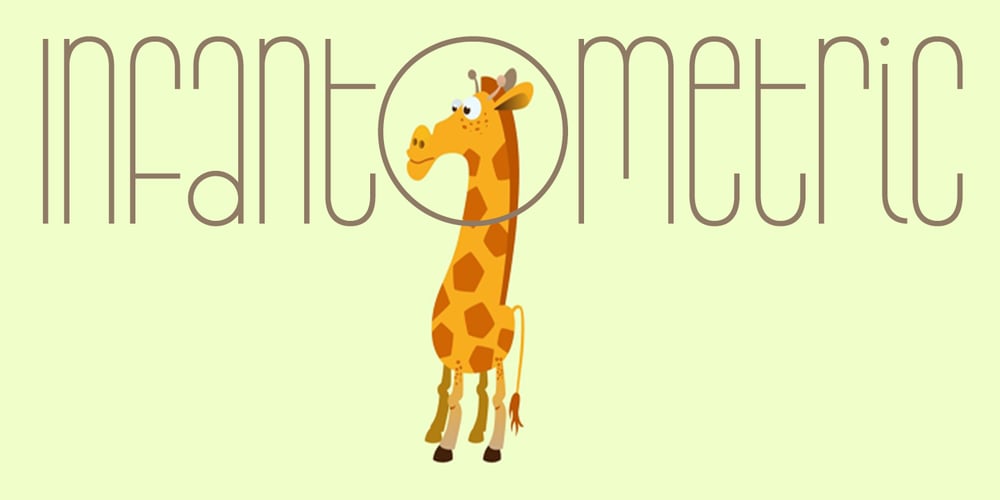
Infantometric Pro Font Family was designed by Roger S. Nelsson and published by CheapProFonts. Infantometric Pro contains 3 styles and family package options. The unicase height, condensed forms and playful mix of geometric construction and childish letterforms gives these fonts a naïve and charming expression. Part infantile, part geometric – it’s Infantometric! ALL fonts from CheapProFonts have very extensive language support: They contain some unusual diacritic letters (some of which are contained in the Latin Extended-B Unicode block) supporting: Cornish, Filipino (Tagalog), Guarani, Luxembourgian, Malagasy, Romanian, Ulithian and Welsh. They also contain all glyphs in the Latin Extended-A Unicode block (which among others cover the Central European and Baltic areas) supporting: Afrikaans, Belarusian (Lacinka), Bosnian, Catalan, Chichewa, Croatian, Czech, Dutch, Esperanto, Greenlandic, Hungarian, Kashubian, Kurdish (Kurmanji), Latvian, Lithuanian, Maltese, Maori, Polish, Saami (Inari), Saami (North), Serbian (latin), Slovak(ian), Slovene, Sorbian (Lower), Sorbian (Upper), Turkish and Turkmen. And they of course contain all the usual “western” glyphs supporting: Albanian, Basque, Breton, Chamorro, Danish, Estonian, Faroese, Finnish, French, Frisian, Galican, German, Icelandic, Indonesian, Irish (Gaelic), Italian, Northern Sotho, Norwegian, Occitan, Portuguese, Rhaeto-Romance, Sami (Lule), Sami (South), Scots (Gaelic), Spanish, Swedish, Tswana, Walloon and Yapese.